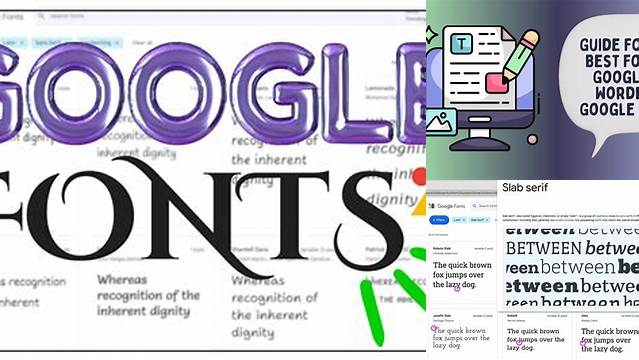
Google Fonts: A Complete Guide To Using Free Fonts
In the realm of web design, typography plays a pivotal role in shaping the user experience. Selecting the right fonts can significantly enhance readability, convey your brand's personality, and create a visually appealing website. Google Fonts, a vast library of free and open-source fonts, offers an incredible resource for designers and developers alike. In this comprehensive guide, we'll explore everything you need to know about using Google Fonts effectively, from selecting the right fonts to implementing them on your website. Let's dive in and unlock the power of typography!
What are Google Fonts?
Google Fonts is a service provided by Google that offers a massive library of over 1,400 free and open-source font families. These fonts are readily available for use on websites, in documents, and in other design projects. The service is designed to make high-quality typography accessible to everyone, regardless of their budget or technical expertise. This has revolutionized web design, allowing designers to move beyond the limited set of system fonts and incorporate a wider range of styles and personalities into their projects. With Google Fonts, you can easily find the perfect typeface to match your brand's aesthetic and enhance the overall user experience of your website.
The sheer variety of fonts available on Google Fonts can be both a blessing and a challenge. While the extensive selection ensures that you can find a font that suits your specific needs, it can also be overwhelming to sift through the options. To make the selection process easier, Google Fonts provides a robust filtering and search system. You can filter fonts by categories such as Serif, Sans Serif, Display, and Handwriting, as well as by properties like thickness, slant, and width. This allows you to narrow down your choices and focus on fonts that align with your design goals. Additionally, Google Fonts offers helpful features like font pairings, which suggest complementary fonts that work well together. This can be particularly useful for designers who are looking to create a cohesive and visually appealing typographic palette for their website.
Why Use Google Fonts?
There are numerous compelling reasons to integrate Google Fonts into your web design workflow. Firstly, the vast selection of fonts available means you're likely to find the perfect typeface to match your brand's identity and design aesthetic. This allows for greater creative freedom and the ability to create truly unique and engaging websites. Instead of being limited to standard system fonts, you can explore a wide range of styles, from classic serifs to modern sans-serifs, and even decorative display fonts. This flexibility enables you to craft a visual identity that resonates with your target audience and effectively communicates your brand's message. The ability to choose from such a diverse collection of fonts can significantly enhance the overall look and feel of your website, making it more memorable and impactful.
How to Choose the Right Google Fonts
Selecting the right Google Fonts is crucial for creating a website that is both visually appealing and highly readable. The fonts you choose can significantly impact the user experience, so it's essential to make thoughtful decisions. Start by considering your brand's identity and the message you want to convey. Different fonts evoke different emotions and associations, so it's important to select typefaces that align with your brand's personality and values. For example, a classic serif font might be suitable for a traditional or formal brand, while a modern sans-serif font might be a better choice for a contemporary or tech-focused company. Think about the overall tone and style of your website and choose fonts that complement it.
Next, focus on readability. While aesthetic appeal is important, the primary function of typography is to make text easily readable. Choose fonts that are clear and legible, even at small sizes. Avoid overly decorative or stylized fonts that can be difficult to read, especially for long blocks of text. Pay attention to factors such as letter spacing, line height, and contrast between the text and background. These elements can significantly impact readability. Consider using different fonts for headings and body text to create visual hierarchy and improve the reading experience. A larger, bolder font for headings can help to draw the reader's eye and provide clear structure to your content, while a simpler, more legible font is best for body text. Testing your font choices on different devices and screen sizes is also crucial to ensure that your text remains readable across all platforms.
Finally, consider font pairings. Combining different fonts can add visual interest and create a more dynamic design, but it's important to do it thoughtfully. Choose fonts that complement each other and work well together. Google Fonts offers helpful suggestions for font pairings, which can be a great starting point. A common strategy is to pair a serif font with a sans-serif font, as the contrasting styles can create a balanced and visually appealing look. For example, you might use a serif font for headings and a sans-serif font for body text, or vice versa. Alternatively, you can use different weights and styles within the same font family to create visual variation. The key is to ensure that the fonts you choose work harmoniously and don't clash with each other. Experiment with different combinations and test them on your website to see how they look in context.
Implementing Google Fonts on Your Website
Implementing Google Fonts on your website is a straightforward process. Google Fonts provides several methods for embedding fonts, making it easy to integrate them into your project. The most common method involves using the <link> tag in the <head> section of your HTML document. This method is simple and efficient, and it allows the browser to download the fonts as soon as the HTML is parsed. To use this method, you simply select the fonts you want to use from the Google Fonts website and copy the provided <link> tag into your HTML. The tag includes a URL that points to the Google Fonts stylesheet, which contains the font definitions.
Another method for embedding Google Fonts is to use the CSS @import statement. This method involves adding an @import rule to your CSS file, which tells the browser to download the fonts from the Google Fonts server. While this method is also straightforward, it can be slightly less efficient than using the <link> tag, as the browser may not discover the @import rule until it has already parsed the CSS file. This can potentially delay the rendering of the text on your website. However, the @import method can be useful in certain situations, such as when you need to dynamically load fonts based on user preferences or other conditions.
Once you have embedded the fonts into your website, you can apply them to your text using CSS. This involves using the font-family property in your CSS rules to specify the font you want to use. Google Fonts provides the exact CSS syntax for each font, making it easy to apply the fonts to your website. For example, if you have embedded the Roboto font, you might use the following CSS rule to apply it to your body text:
body {
font-family: 'Roboto', sans-serif;
}
In this example, 'Roboto' is the name of the font, and sans-serif is a fallback font that will be used if the Roboto font is not available. It's always a good practice to specify a fallback font to ensure that your text remains readable even if the primary font fails to load. You can apply different fonts to different elements of your website by using CSS selectors. For example, you might use a different font for headings than for body text, or you might use different fonts for different sections of your website. By carefully selecting and applying fonts, you can create a visually appealing and highly readable website.
Optimizing Google Fonts for Performance
While Google Fonts are designed to be performant, there are several steps you can take to further optimize their loading speed and minimize their impact on your website's performance. One of the most important steps is to limit the number of font families you use. Each font family you add to your website requires an additional HTTP request, which can slow down page loading times. It's generally best to stick to a maximum of two or three font families per website. This can help to keep your website lean and efficient, without sacrificing visual appeal.
Another way to optimize Google Fonts is to select only the font weights and styles you need. Each font weight (e.g., Regular, Bold, Italic) and style (e.g., Normal, Italic) is a separate font file, and the more font files you include, the longer it will take for your website to load. If you only need the Regular and Bold weights of a font, don't include the other weights. Google Fonts allows you to select the specific weights and styles you want to use, which can significantly reduce the size of the font files and improve loading times. Be mindful of the font weights you choose, and only include the ones that are essential for your design.
In addition to limiting font families and weights, you can also consider using the preconnect link attribute. This attribute tells the browser to establish a connection to the Google Fonts server early in the page loading process. This can help to reduce the time it takes to download the fonts, as the browser will already have a connection established when it needs to request the font files. To use the preconnect attribute, add the following <link> tag to the <head> section of your HTML document:
<link rel="preconnect" href="https://fonts.googleapis.com">
By implementing these optimization techniques, you can ensure that Google Fonts enhance your website's visual appeal without negatively impacting its performance. A fast-loading website provides a better user experience, which can lead to increased engagement and conversions.
Best Practices for Using Google Fonts
To make the most of Google Fonts, it's essential to follow some best practices. These guidelines can help you create websites that are both visually appealing and highly functional. Firstly, always prioritize readability. While it's tempting to choose fonts that are unique and eye-catching, it's crucial to ensure that your text is easy to read. Choose fonts that are clear and legible, even at small sizes. Avoid overly decorative or stylized fonts that can strain the eyes and make it difficult for users to consume your content. Readability should always be your top priority when selecting fonts.
Secondly, use font pairings thoughtfully. Combining different fonts can add visual interest to your website, but it's important to do it carefully. Choose fonts that complement each other and work well together. A common strategy is to pair a serif font with a sans-serif font, as the contrasting styles can create a balanced and visually appealing look. However, it's also possible to pair fonts within the same font family, using different weights and styles to create visual variation. The key is to ensure that the fonts you choose harmonize with each other and enhance the overall design of your website. Avoid using too many different fonts, as this can create a cluttered and confusing look.
Thirdly, test your font choices on different devices and browsers. Fonts can render differently depending on the device and browser being used, so it's important to ensure that your text looks good across all platforms. Test your website on different devices, such as desktops, laptops, tablets, and smartphones, and in different browsers, such as Chrome, Firefox, Safari, and Edge. This will help you identify any issues with font rendering and make adjustments as needed. Pay attention to factors such as font size, line height, and letter spacing, and adjust these settings as necessary to ensure optimal readability on all devices and browsers. By thoroughly testing your font choices, you can ensure that your website looks its best for all users.
When using Google Fonts, there are several common mistakes that you should avoid to ensure your website looks its best and performs optimally. One of the most frequent errors is using too many font families. As mentioned earlier, each font family you add to your website requires an additional HTTP request, which can slow down page loading times. It's best to limit yourself to a maximum of two or three font families per website. This will help to keep your website lean and efficient, without sacrificing visual appeal. Choose your fonts carefully and stick to a limited palette to maintain a consistent and professional look.
Another common mistake is using too many font weights and styles. Each font weight (e.g., Regular, Bold, Italic) and style (e.g., Normal, Italic) is a separate font file, and the more font files you include, the longer it will take for your website to load. Only select the font weights and styles you actually need for your design. If you only need the Regular and Bold weights of a font, don't include the other weights. Google Fonts allows you to select the specific weights and styles you want to use, so take advantage of this feature to minimize the size of your font files and improve loading times. Be selective about the font weights and styles you include, and only use the ones that are essential for your design.
Finally, failing to test your font choices on different devices and browsers is a significant mistake. Fonts can render differently depending on the device and browser being used, so it's important to ensure that your text looks good across all platforms. Test your website on different devices, such as desktops, laptops, tablets, and smartphones, and in different browsers, such as Chrome, Firefox, Safari, and Edge. This will help you identify any issues with font rendering and make adjustments as needed. Pay particular attention to font size, line height, and letter spacing, and adjust these settings as necessary to ensure optimal readability on all devices and browsers. Thorough testing is crucial to ensure that your website looks its best for all users.
Google Fonts is an invaluable resource for anyone involved in web design. With its vast library of free and open-source fonts, it offers endless possibilities for creating visually stunning and highly readable websites. By understanding how to choose the right fonts, implement them effectively, and optimize them for performance, you can unlock the full potential of Google Fonts and elevate your web design projects. So go ahead, explore the world of Google Fonts and discover the perfect typefaces to bring your designs to life. Happy designing, guys!